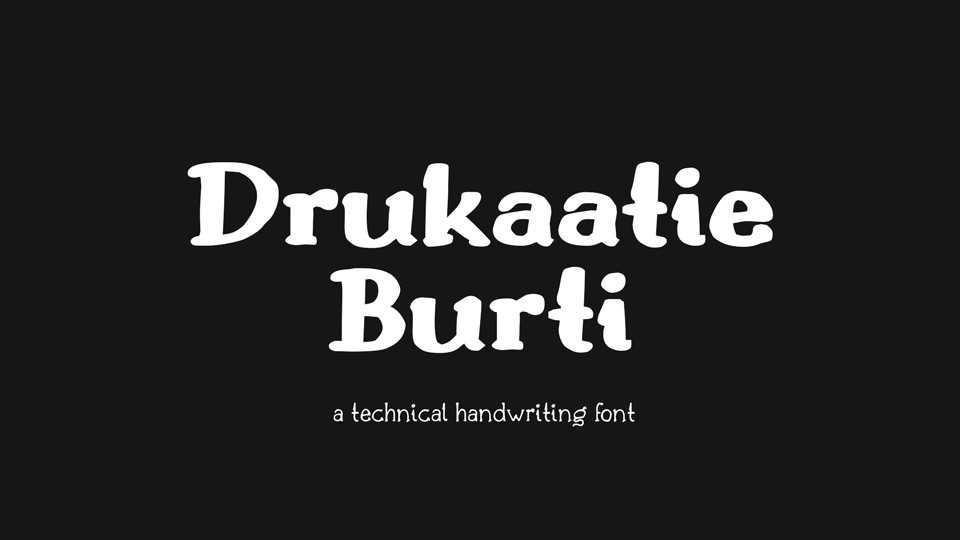
Download Drukaatie Burti font, an another technical handwriting typeface. The capital letters have the same height as Liberation Serif font.
Designer: Kārlis Kalviškis